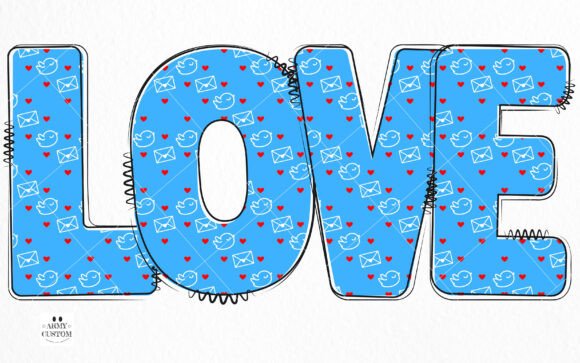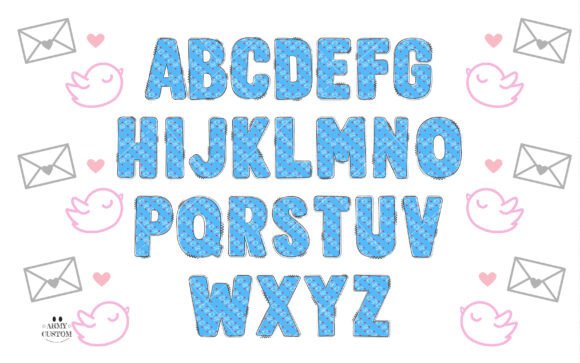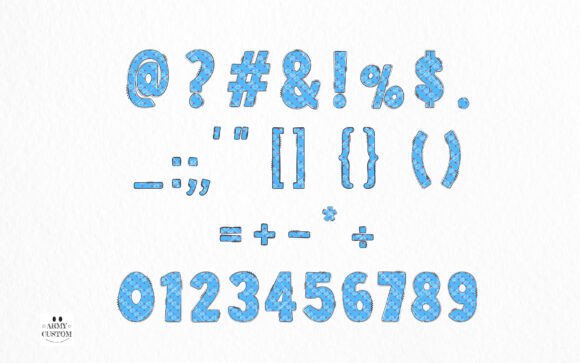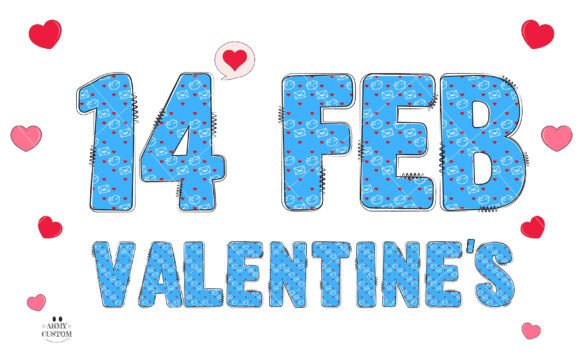
Introduction to Love Valentine’s Army Little Bird Font
Immerse yourself in affection with the enchanting “Valentine’s Army Bird Alphabet” font.
Every stroke of this doodle font tells a tale of love, making it the perfect way to express your sentiments on the day dedicated to love With each letter permeated by intricately doodled heart patterns, it’s a font that’s sure to touch your heart.